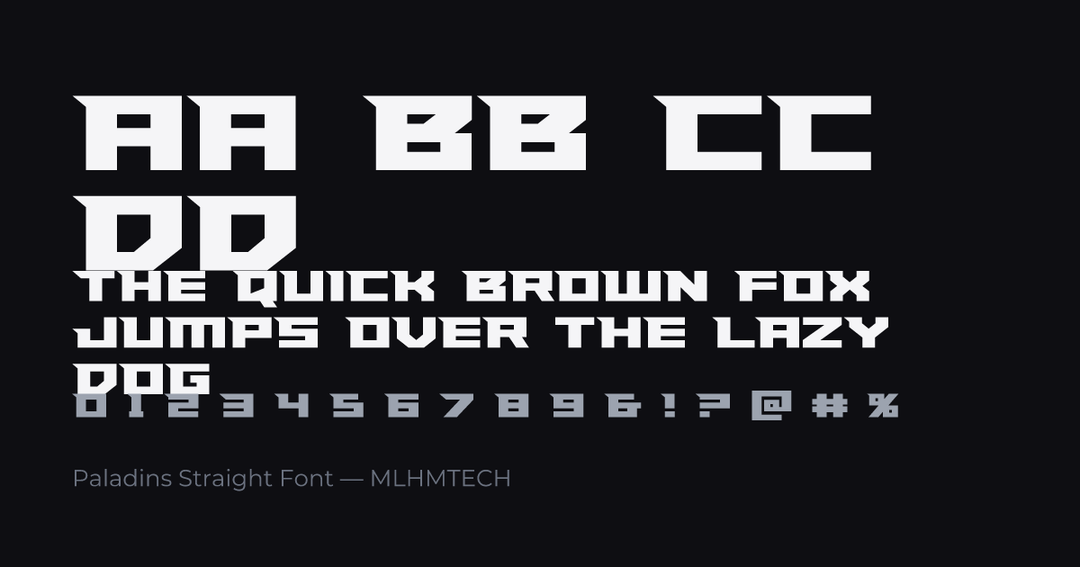
Paladins Straight Font
Paladins Straight is a clean, modern sans-serif font ideal for titles and text overlays in video and design projects.
Paladins Straight is a versatile sans-serif font that brings a clean, modern look to your projects. Its straight lines and balanced proportions make it perfect for titles, headings, and text overlays in videos, thumbnails, and graphic designs.